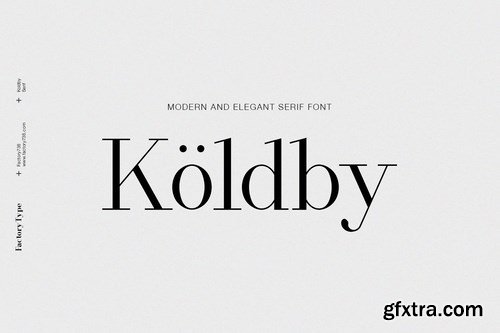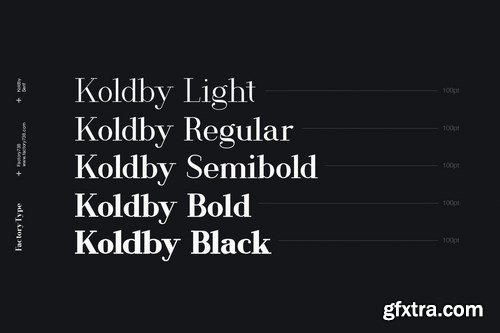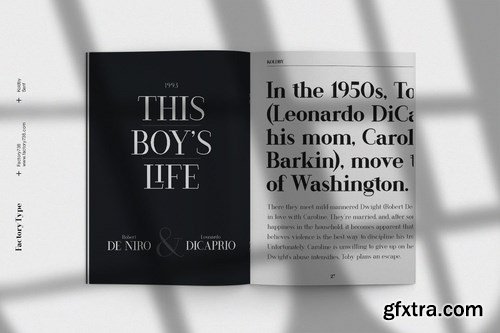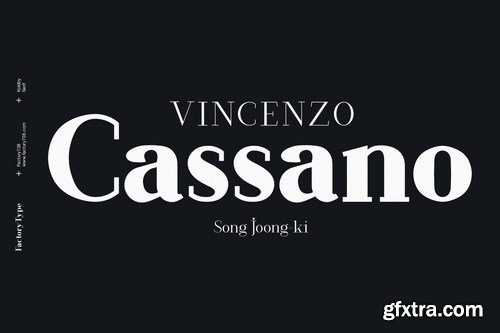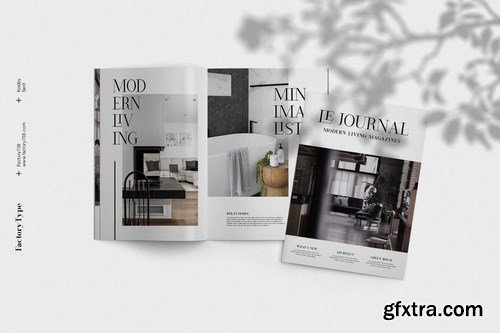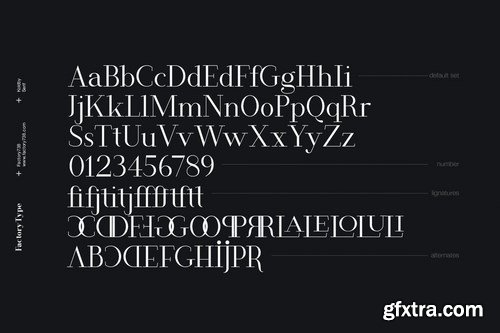
Koldby is a modern and elegant serif font family. The combination of modern and vintage elements renders an elegant design. The variety of weights provide a range of choices that will help you find the best typographic colour for your project. Lighter weights are well-suited for body text while heavier ones are ideal for high impact headlines. The available stylistic Ligature and Alternate offer a number of different characters that give your project design or logo a unique look.